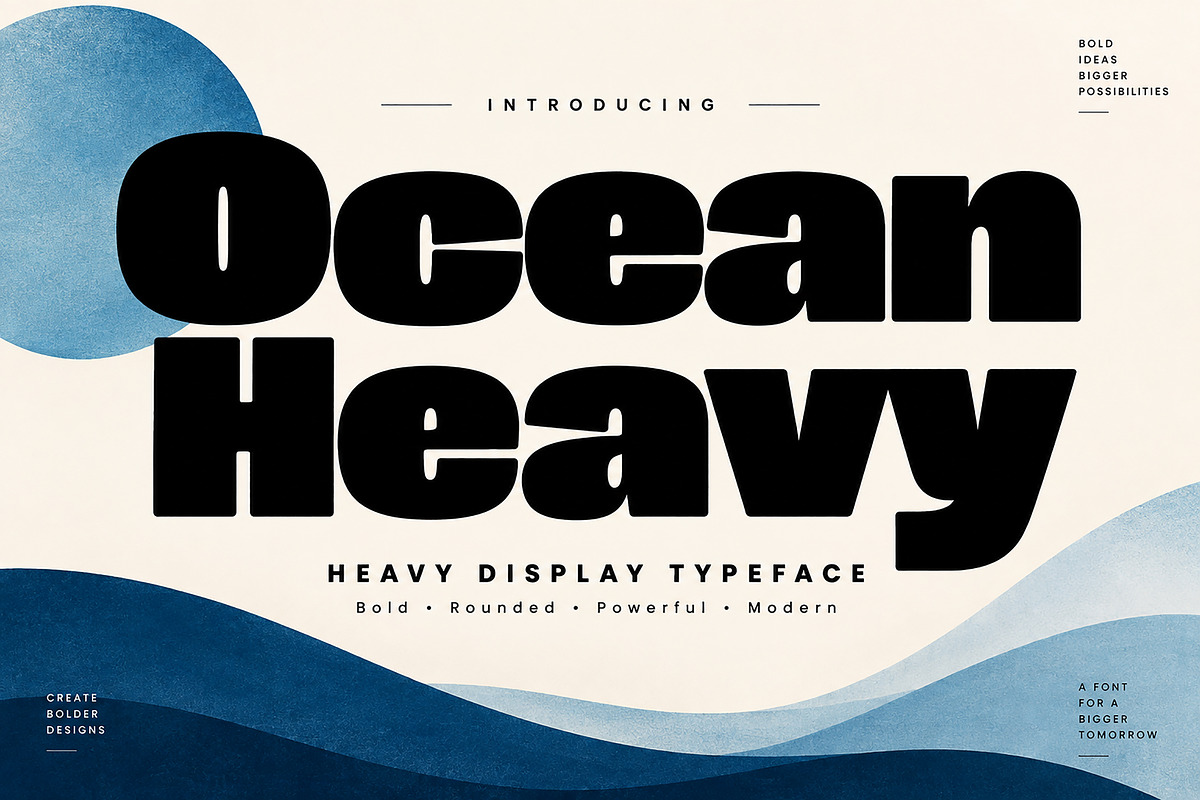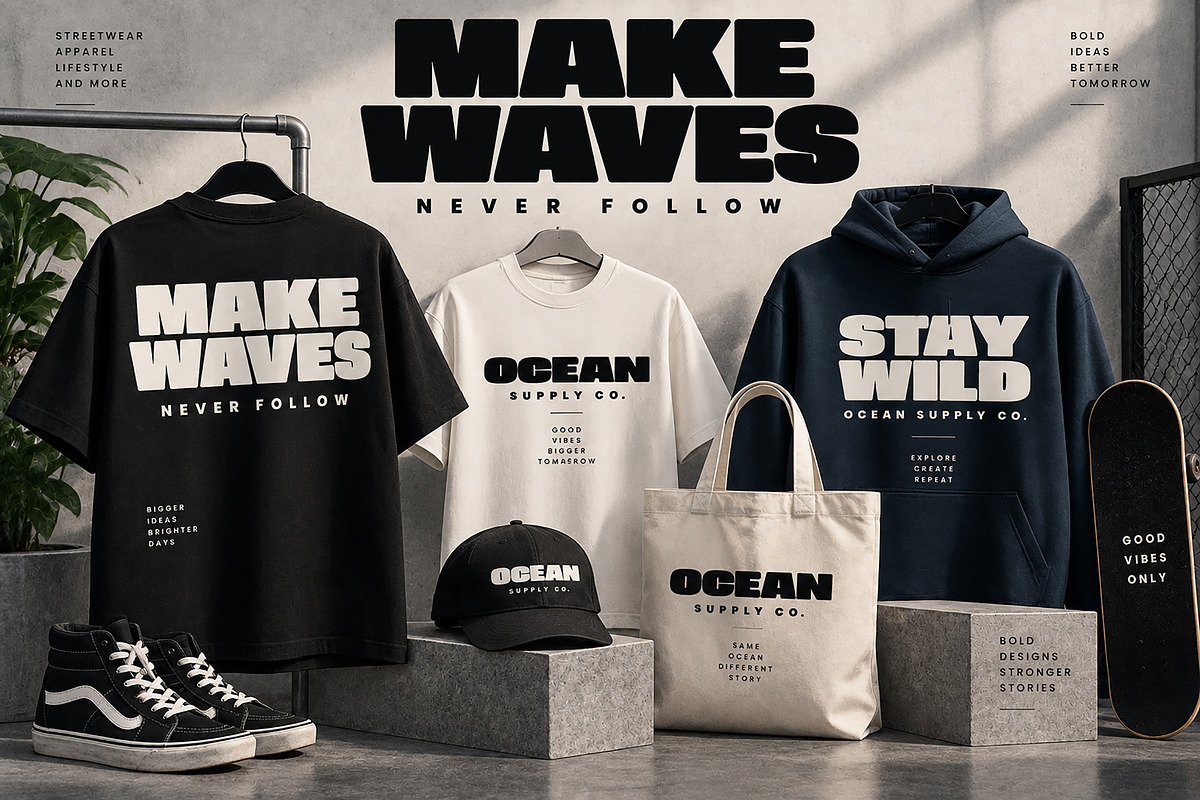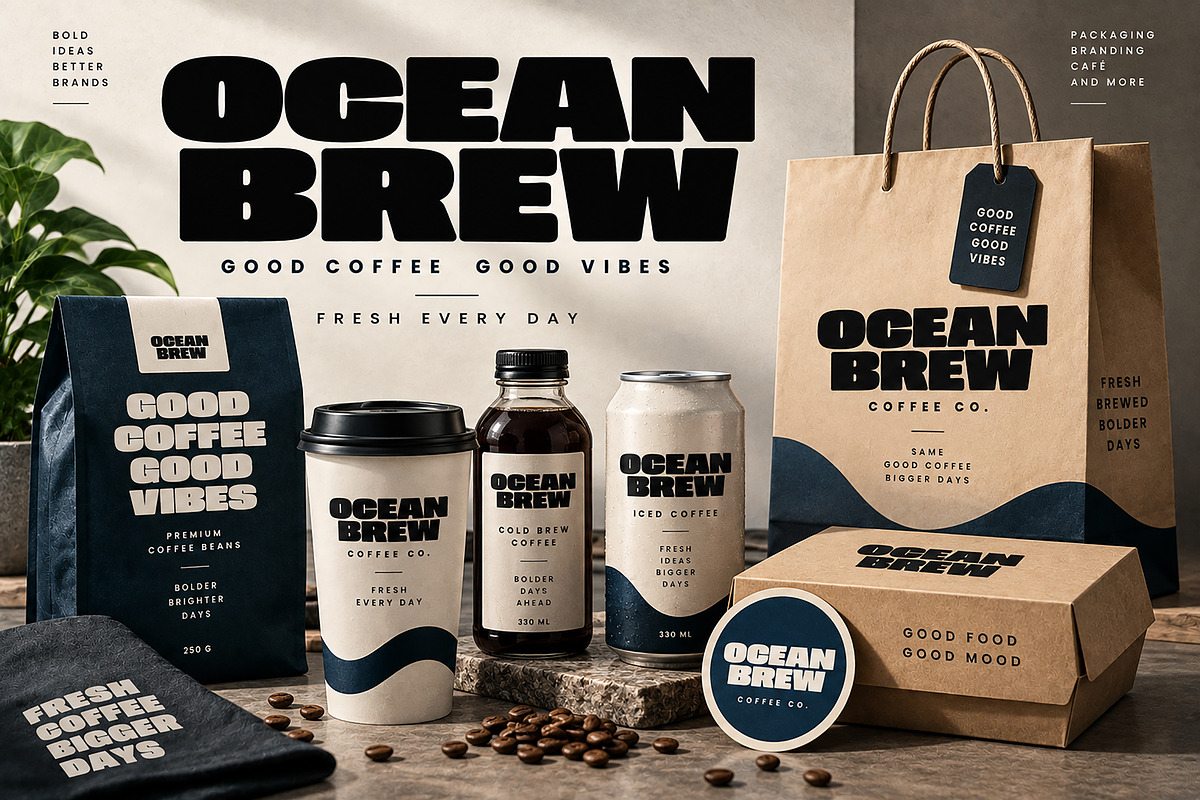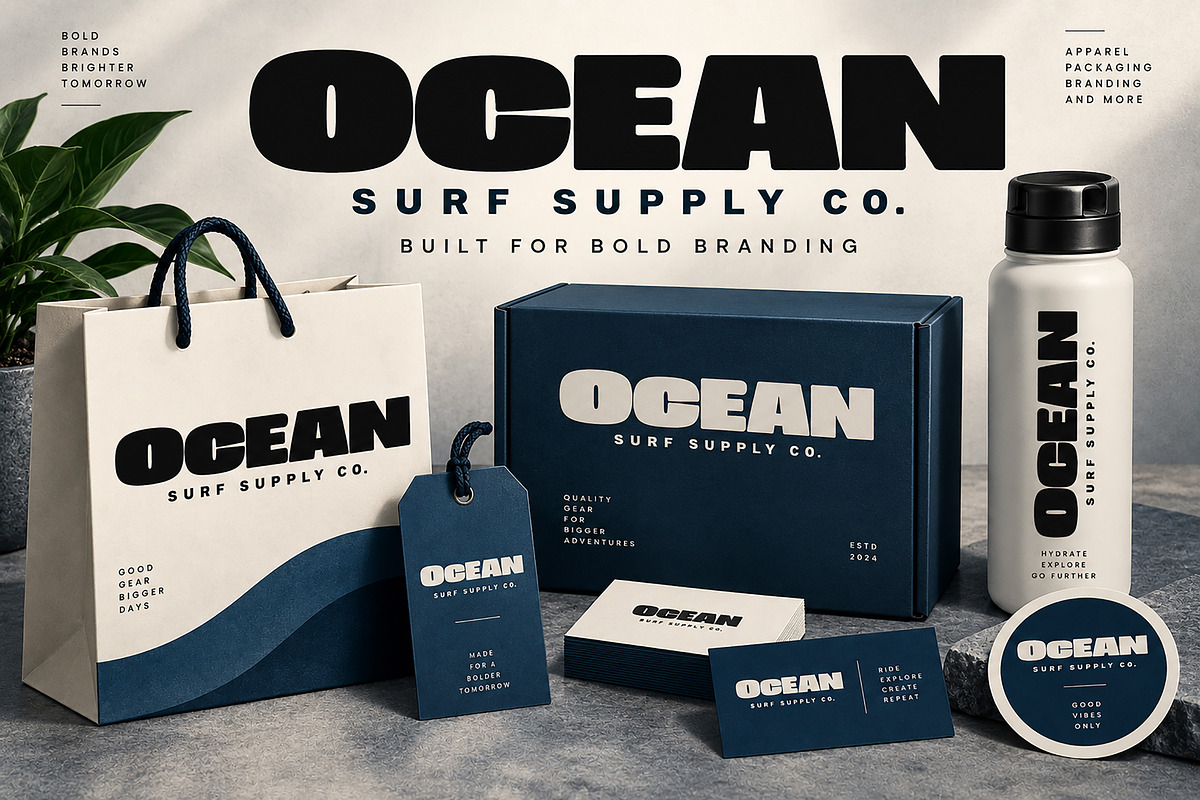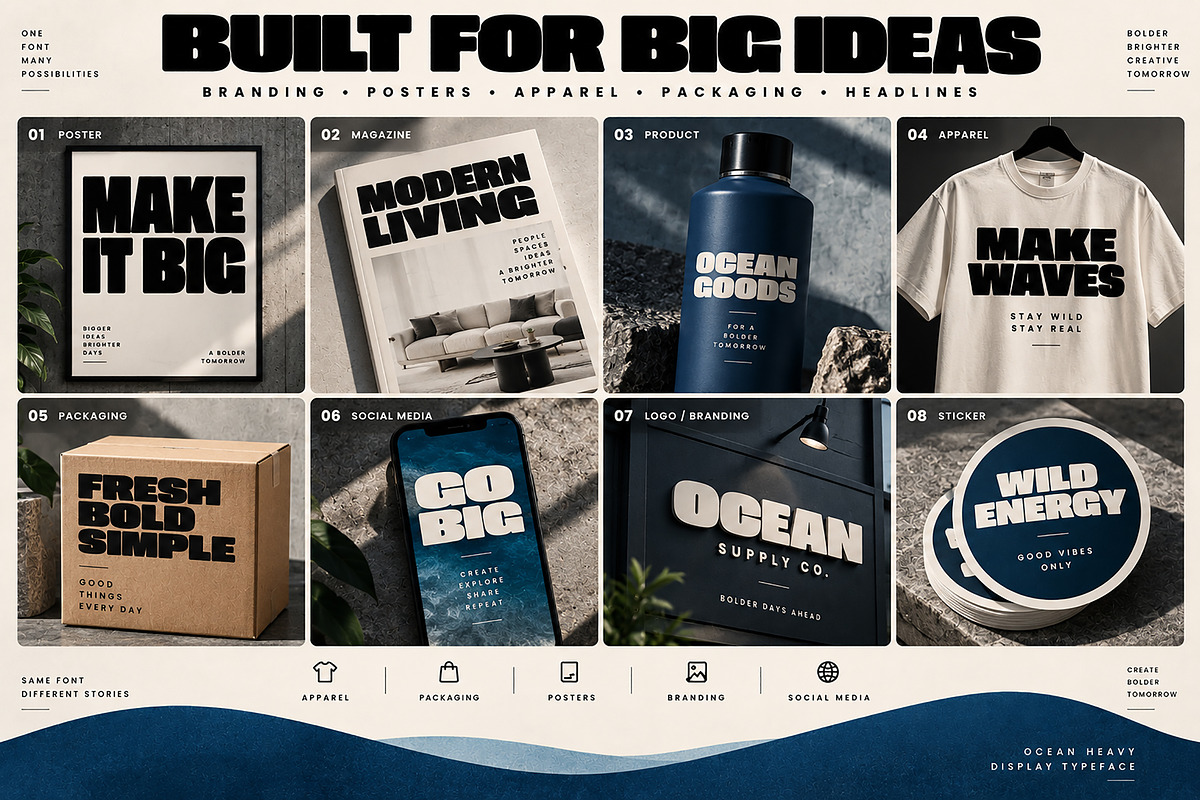
Ocean Heavy
Ocean Heavy is a bold and powerful heavy display typeface designed to make your typography stand out. Featuring an extra-bold weight, rounded forms, and a strong contemporary personality, Ocean Heavy is perfect for designs that need maximum visual impact.
Its chunky and distinctive letterforms work beautifully for logos, branding, posters, headlines, apparel, packaging, advertising, social media graphics, product designs, stickers, labels, and merchandise.
Whether you're creating a modern streetwear collection, bold café branding, eye-catching poster artwork, or a memorable logo, Ocean Heavy gives your designs a strong and confident visual presence.
Logo & Brand Identity
Posters & Flyers
Streetwear & Apparel
T-Shirt & Merchandise Designs
Packaging & Product Branding
Café & Food Branding
Labels & Stickers
Magazine & Editorial Headlines
Advertising & Promotional Graphics
Social Media Designs
Print & Digital Projects
Creative Typography
Bold Heavy Display Style
Rounded & Chunky Letterforms
Strong Contemporary Character
Excellent for Large Headlines
Great for Branding & Logo Concepts
Ideal for Print & Digital Design
Versatile Commercial Applications
Bring bold energy and strong visual impact to your next creative project with Ocean Heavy.